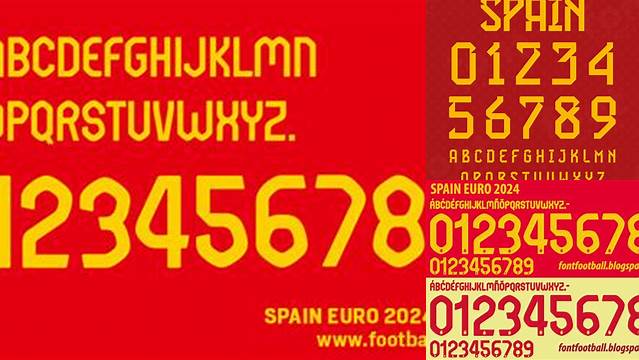
Spain Soccer Font: Free Download For Your Projects
Hey guys! Are you looking to spice up your designs with a font that screams Spain soccer? You've come to the right place! In this article, we're diving deep into the world of Spain soccer fonts, exploring where to find them, how to use them, and everything in between. Whether you're designing a poster, a website, or just want to add some flair to your social media, the right font can make all the difference. So, let's get started!
1. Free Spain Soccer Font Downloads: An Overview
When it comes to free Spain soccer font downloads, it's like finding treasure – you need to know where to look! The internet is brimming with options, but not all are created equal. Some fonts might be low-quality, lack the authentic feel, or even come with licensing restrictions that could cause headaches down the line. So, how do you navigate this font jungle? Well, that's what we're here for! We'll guide you through the best resources, the key characteristics of a great soccer font, and what to watch out for to ensure you're getting the best bang for your buck (or rather, no buck at all!). A good Spain soccer font should capture the energy and passion of the game, reflecting the style and spirit of Spanish football. Think bold, dynamic, and maybe even a touch of flair – just like the players themselves!
2. Best Websites for Spain Soccer Fonts
4. Key Characteristics of a Good Spain Soccer Font
So, what makes a good Spain soccer font, anyway? It's not just about looking sporty! A great soccer font should be bold, dynamic, and readable. It needs to capture the energy and excitement of the game while still being clear and easy to read, even at smaller sizes. Think about the fonts you see on soccer jerseys, posters, and TV graphics – they often have a strong, impactful presence, with thick strokes and sharp angles. But they also need to be legible, so the team names and player numbers are instantly recognizable. Look for fonts that have a good balance between style and function. A font that's too decorative or stylized might look cool, but it won't be very practical if it's hard to read. Consider the overall tone and message of your design. Are you going for a classic, traditional feel, or something more modern and edgy? The font you choose should reflect that. Ultimately, the best Spain soccer font is one that enhances your design and helps you communicate your message effectively.
6. Using Soccer Fonts in Graphic Design
Now for the fun part: using soccer fonts in graphic design! This is where you get to unleash your creativity and bring your vision to life. Soccer fonts can be used for a wide range of projects, from posters and banners to social media graphics and website headers. The key is to use them strategically and in a way that complements your overall design. Don't just slap a soccer font on everything – think about the message you're trying to convey and how the font can help you achieve that. A bold, impactful font might be perfect for a headline or call to action, while a more subtle font might be better for body text. Consider the color and size of the font as well. A bright, contrasting color can make your text pop, while a larger font size can add emphasis. Experiment with different combinations and see what works best for your design. Remember, the goal is to create something that's visually appealing, easy to read, and captures the spirit of the game. So, go out there and make some magic happen with your Spain soccer font!
7. Font Pairing Tips for Soccer-Themed Designs
Font pairing is like finding the perfect midfield duo – you need a combination that works seamlessly together! When it comes to font pairing tips for soccer-themed designs, the key is to create contrast and visual interest without sacrificing readability. A classic approach is to pair a bold, display font (like your Spain soccer font) with a simpler, more understated font for body text. Think of it as the star striker paired with a reliable playmaker – both are essential, but they play different roles. For example, you could pair a strong sans-serif font with a more elegant serif font, or vice versa. Another tip is to limit yourself to two or three fonts in a single design. Too many fonts can create a cluttered and confusing look. Choose fonts that complement each other in terms of style, weight, and spacing. Use online tools like FontPair or Typewolf to get inspiration and see how different fonts look together. Experiment and find a combination that reflects the tone and personality of your design. A well-paired font combination can elevate your soccer-themed design from good to great!
8. Creating a Custom Soccer Jersey Font
Ever dreamt of designing your own soccer jersey font? Well, creating a custom soccer jersey font is totally achievable, even if you're not a professional designer! You can use font editing software like FontForge (which is free and open-source) or more advanced tools like Glyphs or FontLab Studio. Start by sketching out your ideas on paper. Think about the overall style you want to achieve – do you want something classic and traditional, or something more modern and edgy? Consider the shapes of the letters and numbers, the weight and spacing, and any unique details you want to incorporate. Once you have a clear concept, you can start digitizing your design in the font editor. This can be a time-consuming process, but it's also incredibly rewarding. You'll need to draw each letter and number individually, adjust the spacing and kerning, and test the font in different contexts. If you're feeling ambitious, you can even create different weights (e.g., regular, bold) and styles (e.g., italic) of your font. Remember, a custom soccer jersey font is a chance to express your creativity and create something truly unique. So, don't be afraid to experiment and have fun!
9. Free Soccer Font Generators Online
If you're looking for a quick and easy way to create a soccer font, then free soccer font generators online might be just what you need. These tools allow you to input text and generate a variety of soccer-themed fonts with just a few clicks. While they might not offer the same level of customization as creating a font from scratch, they can be a great option for quick projects or for getting inspiration. Some popular font generators include FontStruct, FlamingText, and Cool Text. These sites typically offer a range of pre-designed templates and styles that you can customize to your liking. You can adjust the font size, color, spacing, and other parameters to create a unique look. However, be aware that the quality of the fonts generated by these tools can vary. Some might look a bit generic or pixelated, so it's important to preview the font carefully before you download it. Also, check the licensing terms to make sure you're allowed to use the font for your intended purpose. But if you're in a pinch and need a soccer font fast, a free font generator can be a lifesaver!
10. Spain National Team Font Styles
Let's talk about style! The Spain national team font styles are iconic and instantly recognizable. They embody the passion and flair of Spanish football, and they've evolved over the years to reflect the team's identity and spirit. If you're looking to capture that authentic Spanish soccer vibe, studying the official fonts used by the national team is a great place to start. Typically, these fonts are bold, modern, and have a distinct European flair. They often feature sharp angles, clean lines, and a sense of dynamism that reflects the fast-paced nature of the game. Look for fonts that have a similar weight and character to the official Spain national team fonts. You can find inspiration by looking at past jerseys, posters, and other official merchandise. Pay attention to the numbers as well – they often have a unique design that sets them apart from the letters. By incorporating elements of the Spain national team font styles into your own designs, you can add a touch of authenticity and create something that truly resonates with fans.
11. Downloadable Font Packs for Soccer Projects
For those who want a curated selection of fonts, downloadable font packs for soccer projects can be a fantastic time-saver. These packs typically include a variety of fonts that are specifically chosen for their suitability for soccer-related designs. They might include a mix of bold display fonts, clean sans-serif fonts, and even some more decorative options. The advantage of using a font pack is that you have a cohesive set of fonts that work well together, which can save you the hassle of searching for individual fonts and trying to pair them yourself. Many online marketplaces offer font packs, such as Creative Market, Envato Elements, and MyFonts. When choosing a font pack, consider the overall style and tone of your project. Does the pack include fonts that match your vision? Are the fonts versatile enough to be used in different contexts? Also, pay attention to the licensing terms – make sure the pack allows you to use the fonts for your intended purpose. With a good downloadable font pack, you'll have a ready-made toolkit of typography to tackle any soccer-themed design!
12. Creating a Striking Headline with Soccer Fonts
Your headline is the first thing people see, so it needs to pack a punch! Creating a striking headline with soccer fonts is all about choosing the right font and using it effectively. A bold, impactful font is essential for grabbing attention and conveying the excitement of the game. Think about fonts with thick strokes, strong angles, and a dynamic feel. Display fonts are often a great choice for headlines, as they're designed to be eye-catching and memorable. Experiment with different font sizes, weights, and colors to create visual interest. Consider using a contrasting color to make your headline pop against the background. Also, think about the overall layout and spacing. Give your headline room to breathe, and don't overcrowd it with other elements. Use kerning and tracking to adjust the spacing between letters and words, ensuring that your headline is easy to read and visually appealing. A well-crafted headline using the right soccer font can make all the difference in capturing your audience's attention.
13. Using Soccer Fonts for Team Logos
A team logo is a visual representation of a team's identity, and the font you choose plays a crucial role in conveying that identity. Using soccer fonts for team logos requires careful consideration of the team's personality, history, and target audience. A classic, traditional team might opt for a bold, serif font, while a more modern and edgy team might choose a sans-serif font with clean lines and a contemporary feel. The font should be readable, memorable, and scalable, meaning it should look good at both large and small sizes. Think about the overall shape and structure of the logo. Does the font complement the other elements, such as the team crest or mascot? Experiment with different font weights and styles to create visual interest. Consider using a custom font or modifying an existing font to create a unique look for your team. The right soccer font can elevate your team logo from ordinary to iconic, helping to build brand recognition and create a strong visual identity.
14. Soccer Font Styles Inspired by Famous Clubs
Looking for inspiration? Check out the soccer font styles inspired by famous clubs! Many top soccer clubs have distinct typographic identities, and studying these styles can give you ideas for your own designs. Think about the bold, modern fonts often used by clubs like Real Madrid and Barcelona, or the classic, elegant fonts favored by teams like AC Milan and Juventus. These fonts are often customized and exclusive to the clubs, but you can find similar styles by researching and experimenting with different typefaces. Look for fonts that capture the same feel and personality as the club's official font. Consider the colors and visual elements associated with the club. How can you incorporate these into your design? By studying the font styles of famous clubs, you can gain a deeper understanding of how typography can be used to create a strong visual identity and evoke specific emotions and associations.
15. Creating Soccer-Themed Social Media Graphics
Social media is a visual platform, so your graphics need to stand out from the crowd! Creating soccer-themed social media graphics requires a strategic use of typography, imagery, and color. A bold soccer font can be a powerful tool for grabbing attention and conveying your message effectively. Think about the overall tone and style of your social media presence. Are you going for a fun and playful vibe, or something more serious and professional? Choose fonts that reflect this tone. Use contrasting colors to make your text pop against the background. Consider adding visual elements like soccer balls, stadiums, or player images to enhance the soccer theme. Use a consistent font and color scheme across your social media graphics to create a cohesive brand identity. Experiment with different layouts and typography techniques to create visually appealing and engaging content. With the right soccer font and design elements, you can create social media graphics that capture the excitement of the game and resonate with your audience.
16. Designing Soccer Posters with Impactful Fonts
Posters are all about making a statement, and your font choice is crucial for achieving that impact! Designing soccer posters with impactful fonts requires a focus on readability, visual hierarchy, and overall aesthetic appeal. A bold, attention-grabbing font is essential for the headline or main message. Think about fonts with thick strokes, strong angles, and a sense of dynamism. Consider using a different font for the body text or supporting information, but make sure it complements the headline font and maintains readability. Use font size and weight to create a visual hierarchy, guiding the viewer's eye through the poster. Experiment with different layouts and typography techniques to create visual interest. Use contrasting colors to make your text stand out against the background. Consider adding visual elements like player images, soccer balls, or stadium shots to enhance the soccer theme. A well-designed poster with the right soccer font can effectively communicate your message and capture the excitement of the game.
17. Soccer Font Styles for Website Headers
Your website header is prime real estate, so make sure it makes a strong impression! Soccer font styles for website headers should be bold, readable, and aligned with your brand identity. A good header font can grab visitors' attention and communicate your website's purpose or message effectively. Choose a font that reflects the overall style and tone of your website. Are you going for a modern and edgy look, or something more classic and traditional? Consider the size and spacing of the font. It should be large enough to be easily readable, but not so large that it overwhelms the other elements in the header. Use contrasting colors to make your header text stand out against the background. Think about adding visual elements like a team logo or a soccer ball graphic to enhance the soccer theme. A well-designed website header with the right soccer font can create a positive first impression and encourage visitors to explore your site.
18. Free Alternatives to Popular Soccer Fonts
Sometimes, you might be looking for a specific soccer font but can't find it for free or don't want to pay for it. That's where free alternatives to popular soccer fonts come in handy! There are many excellent free fonts that offer a similar look and feel to popular commercial fonts used in the soccer world. Websites like Dafont, Fontspace, and 1001 Free Fonts are great resources for finding these alternatives. When searching, think about the key characteristics of the font you're trying to emulate. Is it bold? Does it have sharp angles or rounded edges? Is it a serif or sans-serif font? Use these characteristics as keywords in your search. You might not find an exact match, but you can often find a free font that's close enough and will work well in your design. Remember to check the licensing terms before using any free font to ensure it's suitable for your project.
19. The Psychology of Font Choice in Soccer Branding
Font choice isn't just about aesthetics – it's also about psychology! The psychology of font choice in soccer branding plays a significant role in how your brand is perceived. Different fonts evoke different emotions and associations, so choosing the right font is crucial for conveying the right message. Bold fonts often convey strength, power, and confidence, while more elegant fonts can suggest tradition and sophistication. Sans-serif fonts are often seen as modern and clean, while serif fonts can evoke a sense of history and authority. When choosing a font for your soccer brand, consider the personality you want to project. Do you want to be seen as aggressive and competitive, or more refined and professional? Think about your target audience as well. What kind of fonts will resonate with them? A well-considered font choice can help you create a strong brand identity and connect with your audience on an emotional level.
20. Soccer Font Inspiration from World Cup Designs
The World Cup is a global stage for soccer, and it's also a great source of soccer font inspiration from World Cup designs! Each tournament often features unique and memorable typographic styles, from the official logos and posters to the team jerseys and graphics. Studying these designs can give you valuable insights into current trends and best practices in soccer typography. Pay attention to the fonts used for team names, player numbers, and slogans. How do these fonts reflect the spirit and identity of the tournament? Consider the color schemes and visual elements used in conjunction with the fonts. How do they contribute to the overall aesthetic? Look for patterns and trends across different World Cup designs. Are there certain font styles or techniques that are consistently used? By analyzing World Cup designs, you can gain a deeper understanding of how typography can be used to create a strong visual identity and evoke the excitement and passion of the game.
21. How to Customize a Soccer Font for Unique Designs
Want to make your designs truly stand out? How to customize a soccer font for unique designs is a skill that can set your work apart. Customizing a font can involve anything from subtle tweaks to major overhauls, allowing you to create a typeface that perfectly matches your vision. You can use font editing software like FontForge, Glyphs, or FontLab Studio to make these modifications. Some common customization techniques include adjusting the letter spacing and kerning, modifying the stroke weight, adding unique serifs or details, and even creating entirely new glyphs or characters. When customizing a soccer font, consider the overall style and tone of your design. What kind of personality do you want to convey? Think about the readability of the font as well. Make sure your customizations don't make the font difficult to read. Experiment with different techniques and find what works best for your project. Customizing a font can be a time-consuming process, but the results can be well worth the effort.
22. Combining Soccer Fonts with Sports Graphics
Typography and visuals go hand-in-hand, and combining soccer fonts with sports graphics effectively is crucial for creating impactful designs. Your font choice should complement the graphics and enhance the overall message. A bold soccer font might pair well with dynamic action shots of players, while a more elegant font could work better with a sleek stadium graphic. Consider the color palette and visual style of your graphics. Choose fonts that align with these elements. Think about the hierarchy of information. Use font size and weight to create a visual hierarchy that guides the viewer's eye through the design. Experiment with different layouts and compositions to find the most effective way to combine your fonts and graphics. A well-integrated combination of soccer fonts and sports graphics can create a powerful visual message that captures the excitement and energy of the game.
23. Soccer Font Design Trends in 2024
Staying up-to-date with the latest trends is important in any design field, and soccer font design trends in 2024 are no exception. In recent years, we've seen a move towards bold, geometric fonts with clean lines and a modern feel. There's also a growing interest in custom fonts and unique typography that reflects a team's or brand's personality. Hand-drawn and brush-style fonts are gaining popularity, adding a touch of personality and authenticity to designs. Retro-inspired fonts are also making a comeback, evoking a sense of nostalgia and tradition. Color is playing a bigger role in font design as well, with designers experimenting with gradients, shadows, and other effects to create visually striking typography. Keep an eye on these trends as you choose fonts for your soccer-themed projects in 2024 and beyond.
24. The Importance of Readability in Soccer Typography
No matter how stylish your font is, it's useless if people can't read it! The importance of readability in soccer typography cannot be overstated. In the fast-paced world of sports, information needs to be conveyed quickly and clearly. A bold soccer font might look great, but if it's too condensed or stylized, it can be difficult to decipher at a glance. When choosing a font, prioritize readability over purely aesthetic considerations. Consider the font size and weight. Is the font legible at smaller sizes? Is the spacing between letters and words adequate? Think about the contrast between the font color and the background. Is there enough contrast to make the text stand out? Test your font in different contexts and on different devices to ensure it's readable in a variety of situations. Remember, clear communication is key in soccer branding and design.
25. Creating a Font Style Guide for Your Soccer Brand
Consistency is key to building a strong brand identity, and creating a font style guide for your soccer brand is a crucial step in achieving that consistency. A font style guide is a document that outlines your brand's typographic guidelines, including which fonts to use for different purposes (e.g., headlines, body text, logos), font sizes, weights, colors, and spacing. This guide serves as a reference for anyone creating content for your brand, ensuring that your typography is always consistent and aligned with your overall brand identity. Your font style guide should also include examples of how to use the fonts effectively, as well as any rules or restrictions. By creating a font style guide, you can establish a clear typographic identity for your soccer brand and ensure that your message is always communicated effectively and consistently.
26. Finding Soccer Font Bundles for Cost-Effective Design
Looking to save some money on your design projects? Finding soccer font bundles for cost-effective design can be a smart move. Font bundles are collections of fonts that are sold together at a discounted price, offering a significant savings compared to buying each font individually. These bundles often include a variety of fonts in different styles, giving you a versatile toolkit for your design projects. Many online marketplaces offer soccer font bundles, such as Creative Market, Envato Elements, and Design Cuts. When choosing a bundle, consider the types of projects you typically work on. Does the bundle include fonts that are suitable for your needs? Are the fonts compatible with your design software? Check the licensing terms as well to ensure you can use the fonts for your intended purposes. A well-chosen soccer font bundle can provide you with a wide range of typographic options at a fraction of the cost of buying individual fonts.
27. Using Soccer Fonts in Motion Graphics and Videos
If you're creating motion graphics or videos, typography plays an important role in conveying your message and adding visual interest. Using soccer fonts in motion graphics and videos requires careful consideration of animation, timing, and overall visual flow. A bold soccer font can be used to create impactful titles and lower thirds, while a more subtle font might be better for body text or captions. Think about how the font will animate and move on the screen. Experiment with different animation techniques, such as fade-ins, slide-ins, and kinetic typography, to add dynamism and visual appeal. Consider the timing and pacing of your text animations. Make sure the text is readable and doesn't move too quickly. Use color and visual effects to enhance the typography and create a cohesive visual style. A well-executed use of soccer fonts in motion graphics and videos can elevate your content and engage your audience.
28. Retro Soccer Fonts: A Throwback to Classic Styles
Nostalgia is a powerful emotion, and retro soccer fonts: a throwback to classic styles can be a great way to tap into that sentiment. Retro fonts evoke a sense of history, tradition, and classic design, making them a popular choice for projects that want to convey a sense of nostalgia. Think about the bold, blocky fonts used on vintage soccer jerseys, posters, and advertisements. These fonts often have a distinct character and personality that sets them apart from modern typefaces. When choosing a retro soccer font, consider the specific era or style you want to emulate. Are you going for a 1970s vibe, or something more from the 1980s? Look for fonts that have distressed textures, rounded edges, or other characteristics that are typical of retro typography. Use these fonts sparingly and in conjunction with other design elements that support the retro theme. A well-chosen retro soccer font can add a touch of classic charm to your designs.
29. The Future of Soccer Typography: Trends and Innovations
Typography is constantly evolving, and the future of soccer typography: trends and innovations is an exciting area to watch. We're likely to see continued experimentation with custom fonts, variable fonts, and other cutting-edge typographic technologies. Variable fonts allow for greater flexibility and customization, enabling designers to adjust font weight, width, and other parameters on the fly. We may also see more integration of typography with other design elements, such as motion graphics and interactive experiences. Artificial intelligence (AI) could play a role in font design as well, helping designers create new typefaces more efficiently. Accessibility will continue to be an important consideration, with designers focusing on creating fonts that are readable and inclusive for all users. As technology advances and design trends evolve, soccer typography will continue to play a vital role in shaping the visual identity of the game.
30. Resources for Learning More About Font Design
Want to dive deeper into the world of font design? There are tons of resources for learning more about font design available online and in print. Websites like Typewolf, I Love Typography, and Fonts in Use offer a wealth of information about typography, including articles, tutorials, and font reviews. Online courses and workshops from platforms like Skillshare and Udemy can provide structured learning experiences. Books like "The Elements of Typographic Style" by Robert Bringhurst and "Thinking with Type" by Ellen Lupton are considered classics in the field. Font design software like FontForge, Glyphs, and FontLab Studio offer powerful tools for creating and customizing typefaces. Experimenting with different fonts and techniques is also a great way to learn and develop your skills. With the right resources and a passion for typography, you can master the art of font design and create stunning soccer-themed graphics!